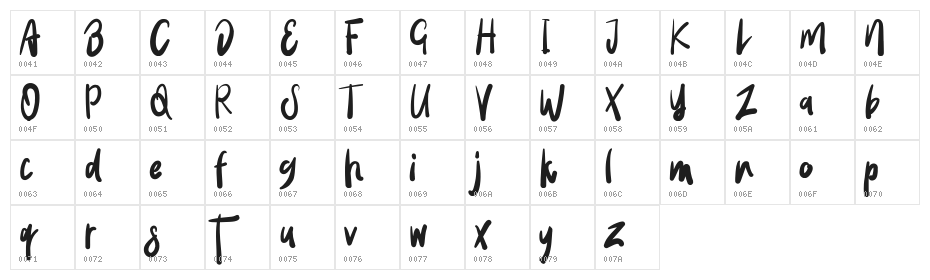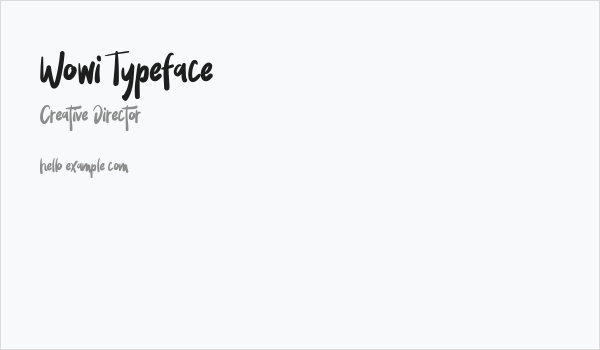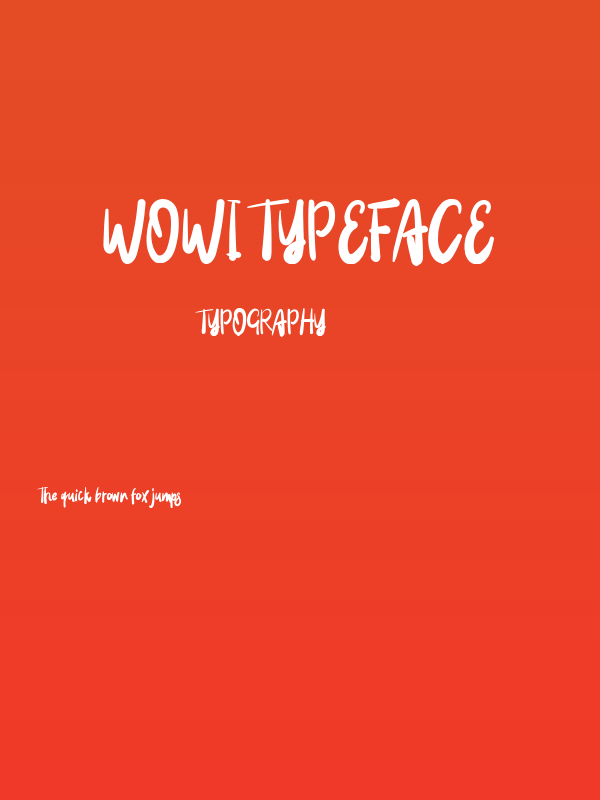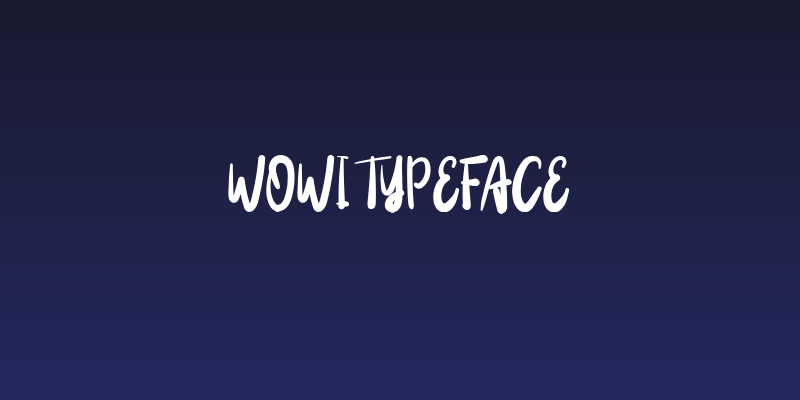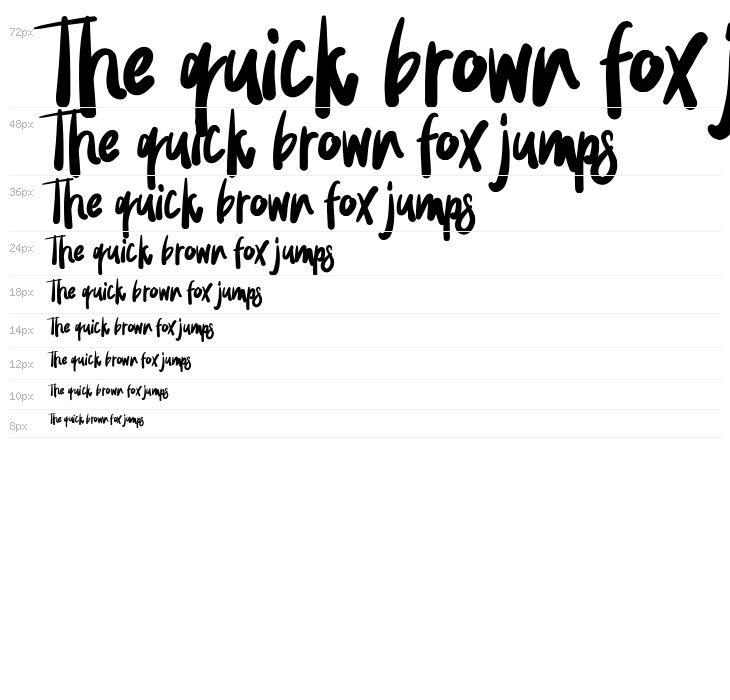
Wowi Typeface Font
Wowi Typeface Description
This font exhibits a bold and expressive handwritten style, characterized by its fluid and dynamic strokes. The letters are crafted with a playful yet sophisticated flair, featuring a mix of thick and thin lines that create a sense of movement and energy. The uppercase and lowercase letters maintain a consistent style, with rounded edges and a slightly slanted orientation that adds to the casual and approachable feel. The numerals and special characters are designed to complement the alphabet, maintaining the same lively and artistic aesthetic. Overall, this font is perfect for projects that require a personal touch and a sense of creativity.
| Proposed Projects | Ideal for greeting cards, invitations, branding projects, and social media graphics. |